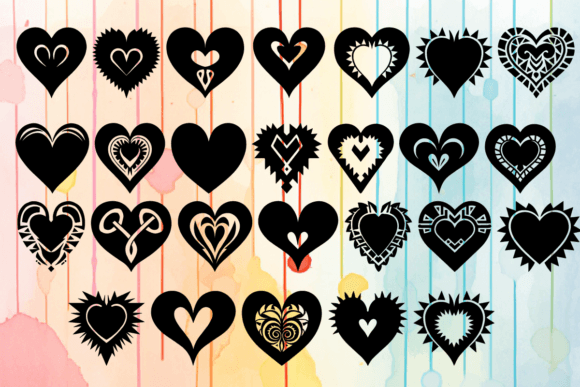
Introducing Heart Heart Dingbats Fonts: Spread Love and Warmth in Your Designs
Are you tired of using the same old fonts in your designs? Do you want to add a touch of warmth and personality to your projects? Look no further than Heart Heart Dingbats Fonts, a charming digital product that features a set of 26 characters from A to Z, each designed in the shape of a heart. In this article, we’ll take a closer look at this delightful font and explore how it can elevate your designs.
What is Heart Heart Dingbats Fonts?
Heart Heart Dingbats Fonts is a unique digital product that offers a set of 26 heart-shaped characters, one for each letter of the alphabet. Whether you’re a designer, crafter, or DIY enthusiast, this font is perfect for adding a touch of whimsy and romance to your projects. The font comes in both OTF and TTF formats, making it easy to use in various design software, including Adobe Illustrator, Photoshop, and Canva.
Key Features of Heart Heart Dingbats Fonts
- 26 Heart-Shaped Characters: Each letter of the alphabet is designed in the shape of a heart, making it perfect for creating custom designs, logos, and graphics.
- Easily Editable: The font is easily editable, allowing you to customize the characters to fit your design needs.
How to Use Heart Heart Dingbats Fonts
Heart Heart Dingbats Fonts is incredibly versatile and can be used in a variety of design projects, including:
- Custom Logos: Create a unique logo for your business or brand using the heart-shaped characters.
- Social Media Graphics: Add a touch of personality to your social media graphics, such as Facebook posts, Instagram stories, and Twitter headers.
- DIY Crafts: Use the font to create custom titles, labels, and decorations for your DIY crafts, such as scrapbooking, card making, and party decorations.
- Wedding and Anniversary Designs: The heart-shaped font is perfect for creating romantic designs for weddings, anniversaries, and other special occasions.
Benefits of Using Heart Heart Dingbats Fonts
Using Heart Heart Dingbats Fonts in your designs offers several benefits, including:
- Unique and Eye-Catching Designs: The heart-shaped characters will add a touch of personality and whimsy to your designs, making them stand out from the crowd.
Tips and Tricks for Getting the Most Out of Heart Heart Dingbats Fonts
To get the most out of Heart Heart Dingbats Fonts, here are some tips and tricks to keep in mind:
- Experiment with Different Colors: Try pairing the heart-shaped characters with different colors and backgrounds to create unique and eye-catching designs.
- Mix and Match Characters: Combine different characters to create custom words and phrases that add a personal touch to your designs.
- Use in Combination with Other Fonts: Pair Heart Heart Dingbats Fonts with other fonts to create interesting and dynamic typography.